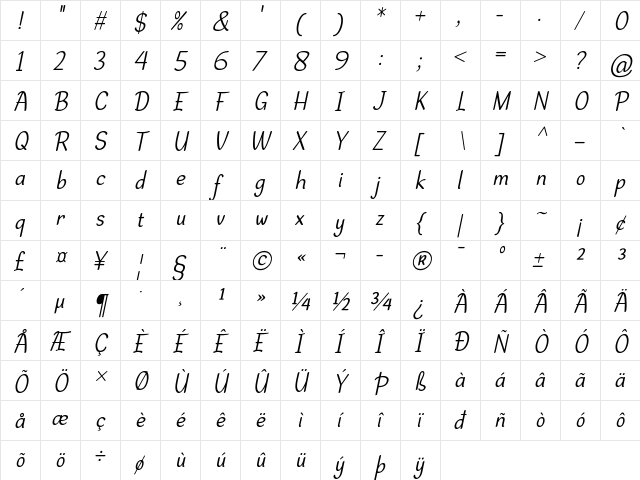
Dehasta Momentos Italic
| Foundry | 7NTypes |
| Designer | Andrian Dehasta, Situjuh Nazara |
Design Context for Dehasta Momentos Typeface
Dehasta Momentos offers clean, dependable letterforms without strong stylistic allegiance, making it a practical choice for designers who need flexibility. Its italic angle brings a sense of urgency and motion to the letterforms.
Pro Tip: Use Dehasta Momentos for emphasis, pull quotes, and subheadings where its slanted energy can add rhythm to the layout.